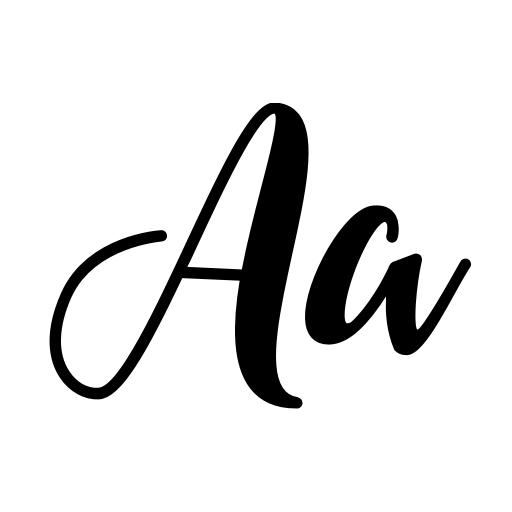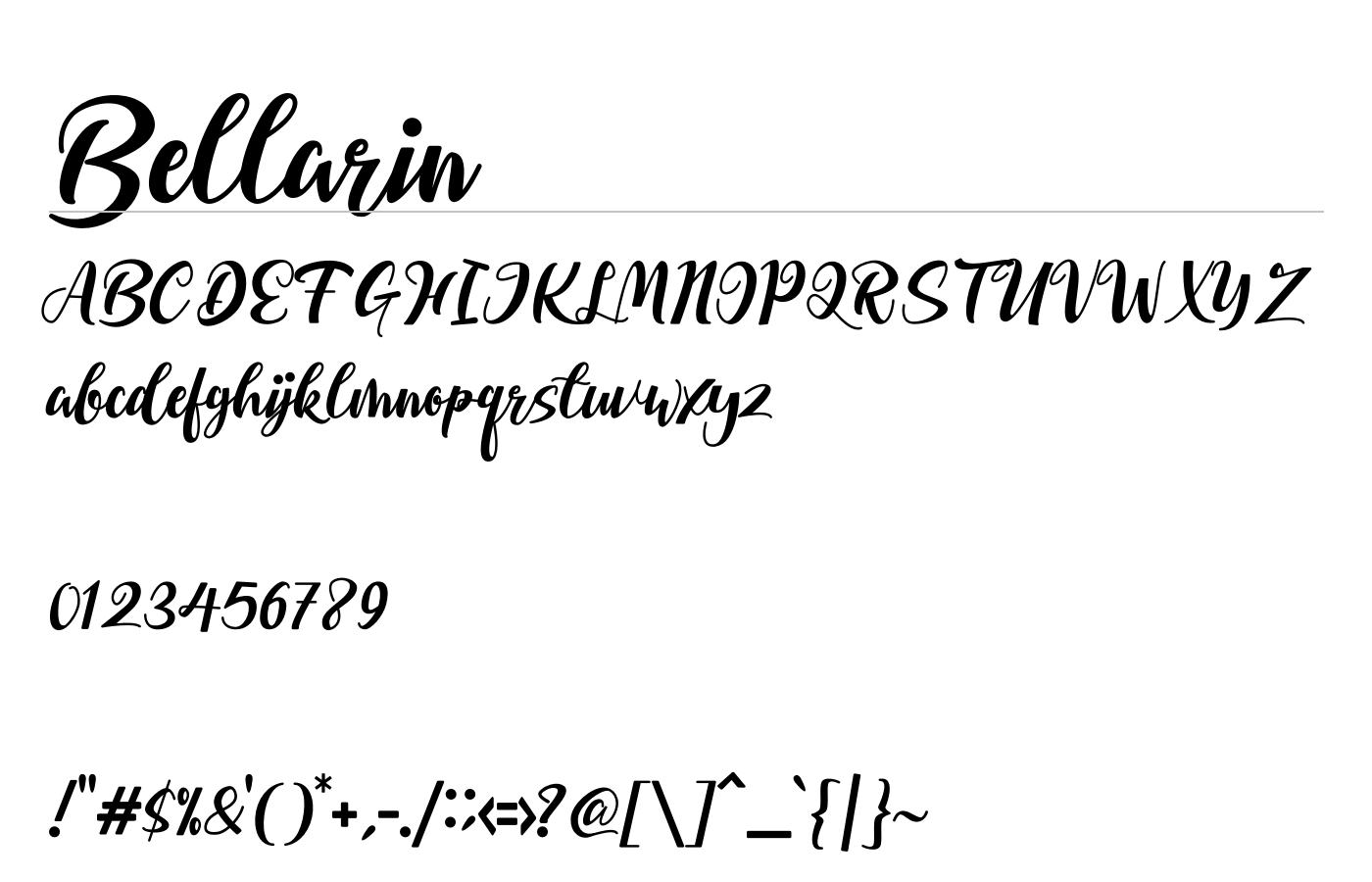
Bellarin is an elegant script font with a bold weight and smooth, flowing strokes that convey a lively yet refined personality. Its moderate contrast and playful letterforms make it ideal for invitations, branding, and headlines where a personal, stylish touch is desired. This font works beautifully in luxury packaging, fashion projects, and any design seeking a warm, handwritten charm.
Bellarin Font
About Bellarin Font
| Font family | Bellarin Font |
| Designer | Nanang Jamaludin |